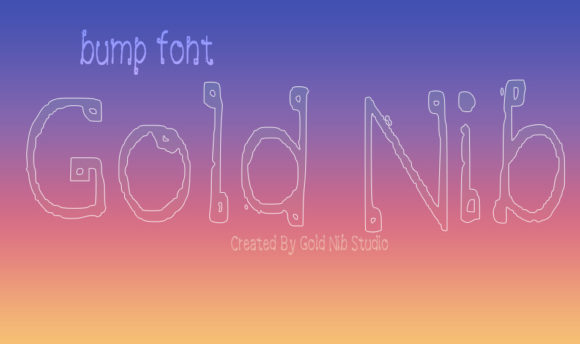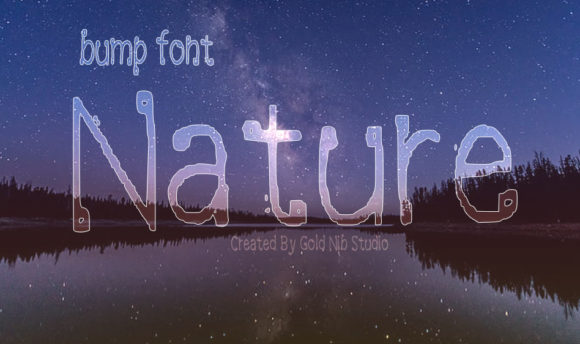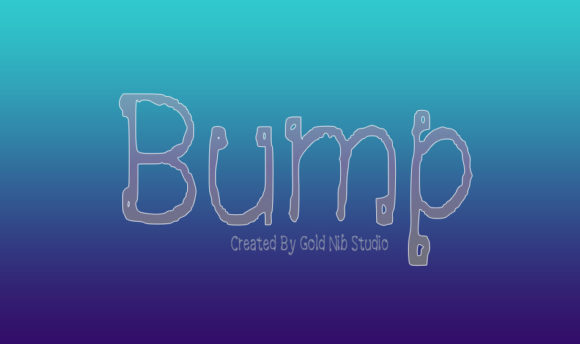
Bump Font: Elevate Your Designs with a Simple yet Powerful Handwritten Style
In the world of typography, fonts play a crucial role in making or breaking a design. A well-chosen font can instantly elevate your project, making it more engaging, readable, and aesthetically pleasing. If you’re on the hunt for a font that embodies simplicity, cleanliness, and a touch of playfulness, look no further than Bump Font. In this article, we’ll dive into the characteristics of Bump Font, its uses, and why it’s becoming a favorite among designers and crafters alike.
What is Bump Font?
Bump Font is a simple and clean handwritten font designed to bring adaptability and fun to your designs. Its uncomplicated yet charming style makes it an excellent choice for a wide range of projects, from digital content to print materials. The font’s simplicity ensures that it remains legible across various sizes and resolutions, making it incredibly versatile.
Key Features of Bump Font
- Simplicity: Bump Font boasts a clean and straightforward design that ensures clarity and readability.
- Handwritten Style: Despite its simplicity, the font retains a personal, handwritten feel that adds warmth and character to any text.
- Adaptability: Its neutral design makes it suitable for various applications, from headings and titles to body text.
- Fun and Engaging: The subtle quirks in its design give it a playful edge, making it perfect for projects that require a bit of personality.
Uses of Bump Font
The versatility of Bump Font makes it an excellent choice for a multitude of design projects. Here are some popular applications:
- Digital Content: Use Bump Font for blog posts, social media graphics, and website content to add a personal touch.
- Print Materials: It’s ideal for brochures, posters, flyers, and business cards, where a clean yet engaging look is desired.
- Crafting and DIY Projects: Bump Font can add a charming, handmade feel to craft tutorials, journaling, and other DIY project materials.
- Branding and Packaging: For brands looking for a friendly and approachable image, Bump Font can be a great addition to logos, product labels, and packaging.
Why Designers and Crafters Love Bump Font
Bump Font has quickly become a favorite among designers and crafters for several reasons:
- Ease of Use: Its simple design makes it easy to pair with other fonts, ensuring a cohesive look in any project.
- Emotional Connection: The handwritten nature of Bump Font helps create an emotional connection with the reader, making content more relatable and engaging.
- Time-Saving: With Bump Font, designers can quickly create beautiful, professional-looking designs without spending hours on typography.
- Cost-Effective: As a versatile font that can be used across various projects, Bump Font offers great value for designers and businesses.
Tips for Using Bump Font Effectively
To get the most out of Bump Font, consider the following tips:
- Mix and Match: Combine Bump Font with other fonts to create visual interest, but ensure they complement each other.
- Play with Sizes: Use varying font sizes to create a hierarchy of information and add depth to your designs.
- Adjust Line Spacing: Optimize line spacing to improve readability, especially in longer texts.
- Experiment with Colors: While Bump Font looks great in black, don’t be afraid to experiment with colors to match your brand or project’s aesthetic.
In conclusion, Bump Font is a powerful tool for designers and crafters looking to add a simple yet engaging touch to their projects. Its versatility, readability, and charming handwritten style make it an excellent choice for a wide range of applications. Whether you’re creating digital content, print materials, or crafting and DIY projects, Bump Font is sure to elevate your designs and make them stand out.